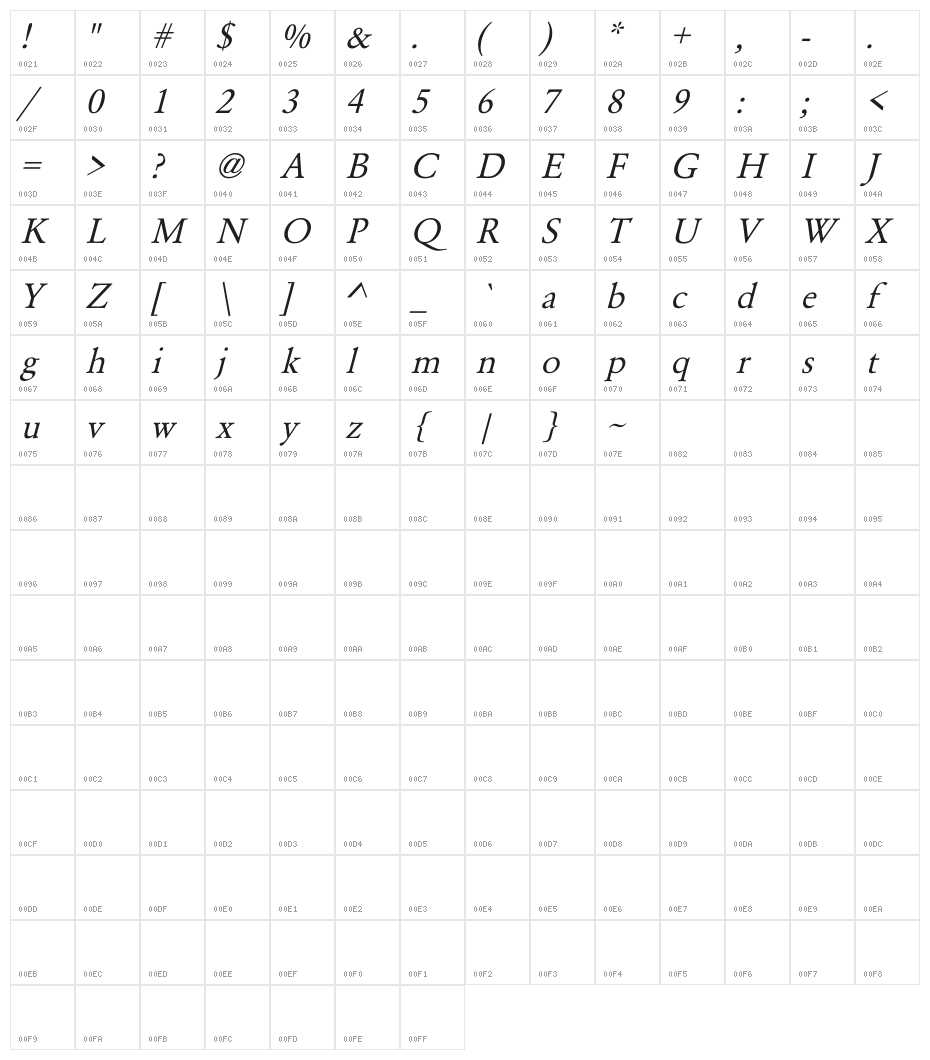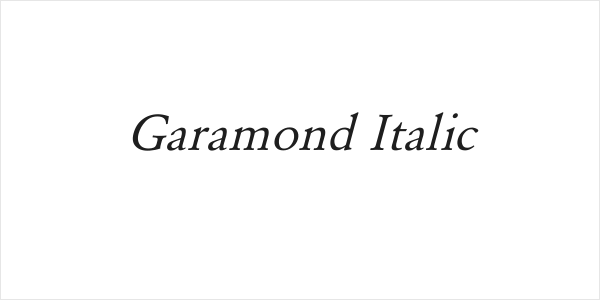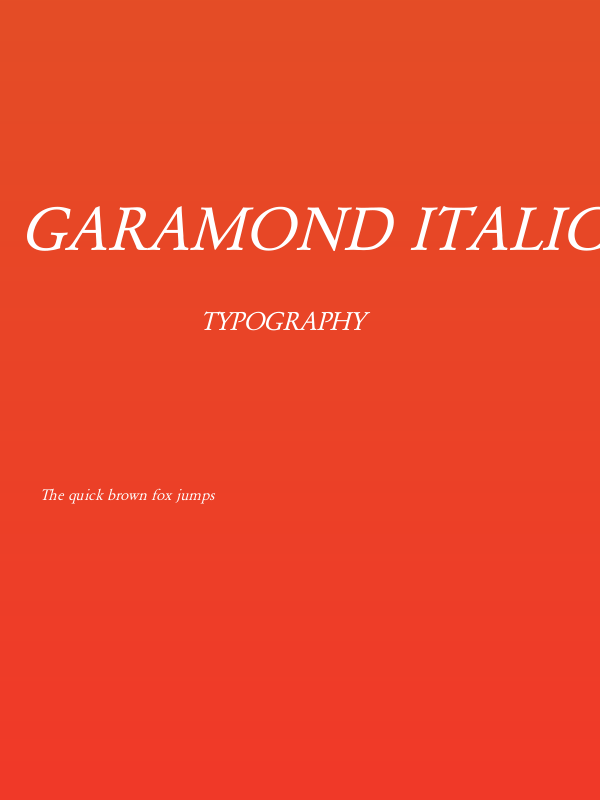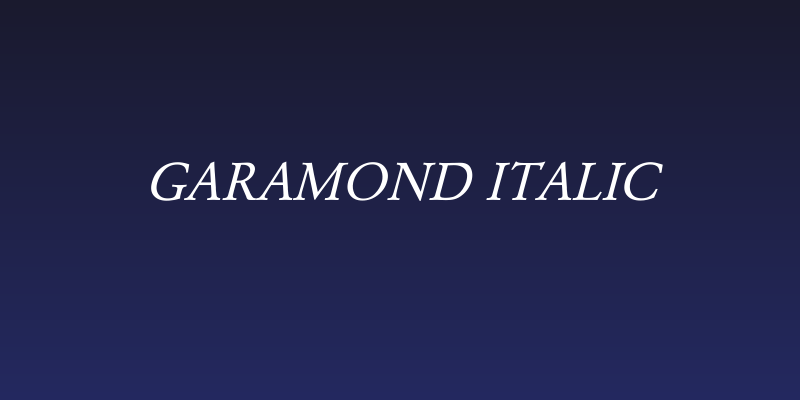
Garamond Italic Font
Garamond Italic Description
This font exudes a classic elegance with its refined, flowing italic style. The characters are gracefully slanted, offering a sense of movement and sophistication. Each letter is crafted with delicate serifs and a moderate stroke contrast, enhancing readability while maintaining a timeless aesthetic. The lowercase letters are particularly distinctive, with unique curves and flourishes that add character and charm. The numerals and special characters are designed to complement the alphabet, ensuring a cohesive look across all text. This font is ideal for projects that require a touch of tradition and elegance.
| Proposed Projects | Ideal for book covers, formal invitations, elegant branding, and editorial design. |